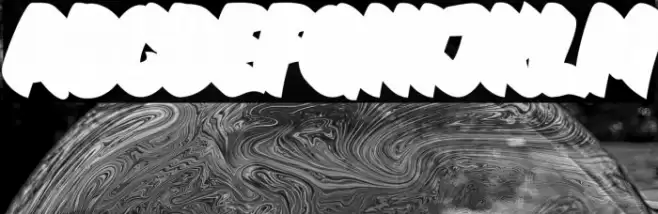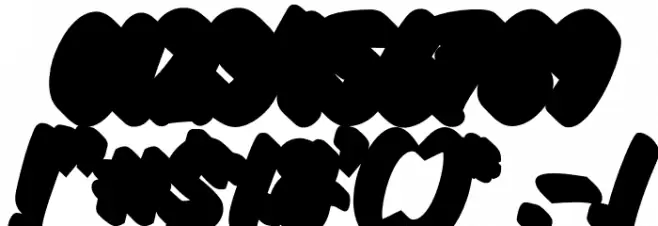
GreatHustleShadow Font
GreatHustleShadow Description
This font features a bold, shadowed style that gives it a striking and dynamic appearance. The characters are thick and rounded, with a playful and energetic vibe. The shadow effect adds depth and dimension, making each letter stand out prominently. This font is highly decorative, with a strong presence that commands attention. The uppercase and lowercase letters maintain a consistent style, with smooth curves and a slightly condensed form. The numbers and special characters are equally bold and maintain the same shadowed effect, ensuring uniformity across all elements.
A bold, shadowed font with a playful and dynamic style from Uncategorized fonts.
- Font: GreatHustleShadow
- Proposed Projects: Ideal for posters, headlines, branding, and any project that requires a bold and eye-catching typeface.